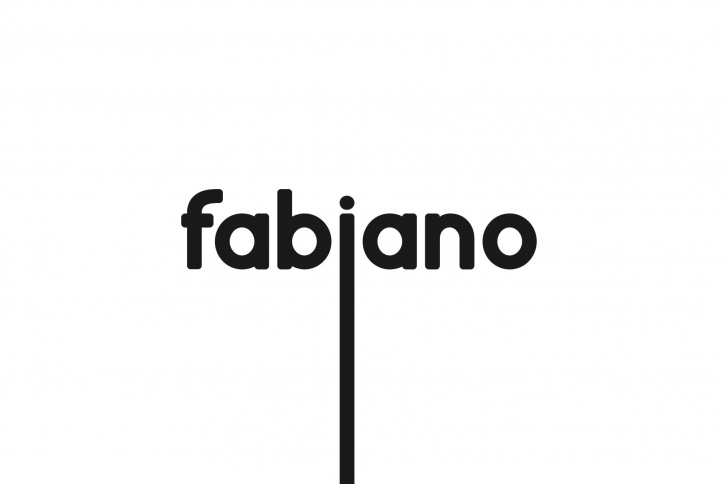
Fabiano. Sans serif family.
Light and unobtrusive rounding of corners and a saturated width of letters make one pay attention to itself. Write them a headline over the design or write with it the whole article and it will look and read equally well. Create a logo from the font using only uppercase or lowercase letters,
use it in a printing house or in any other product, combine it with an illustrative design, etc.
- 6 fonts in family
- UPPERCASE and lowercase letters
- Numbers & basic Punctuation
- Sans Serif Typeface
- Regular and Italic font style
- Bold and Bold italic font style
- Medium and Medium italic font style
- Perfect font with soft rounded corners